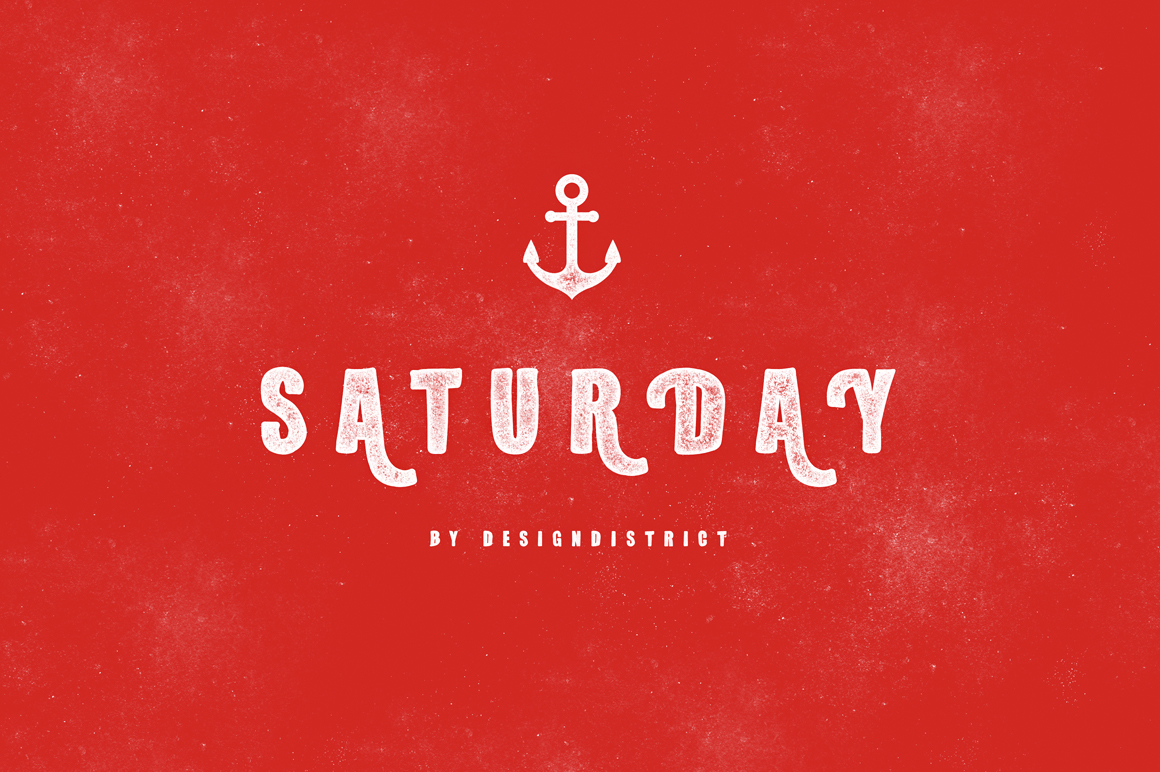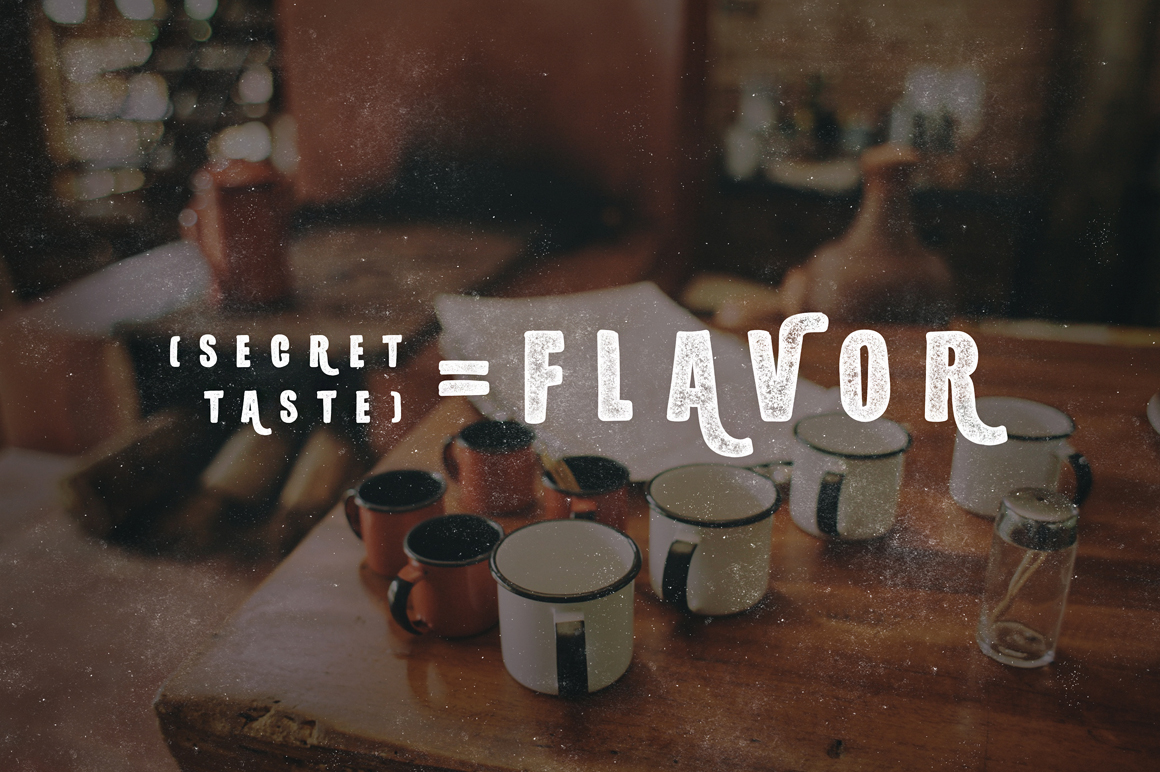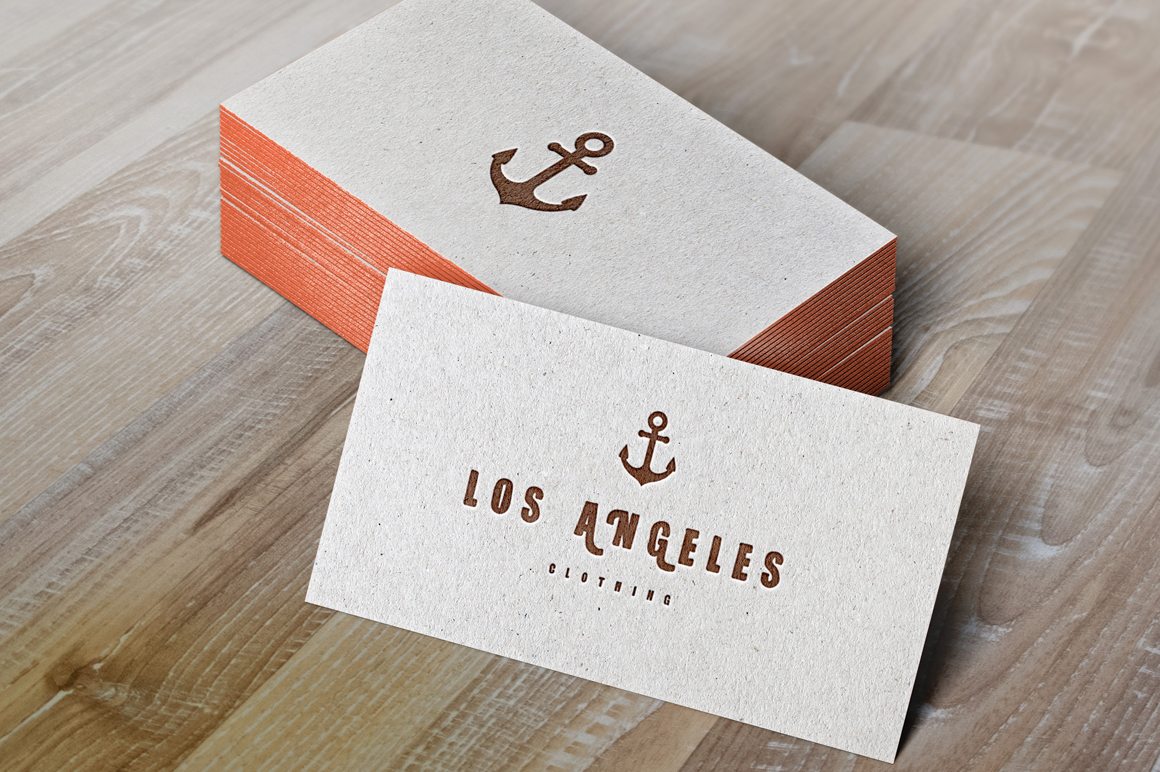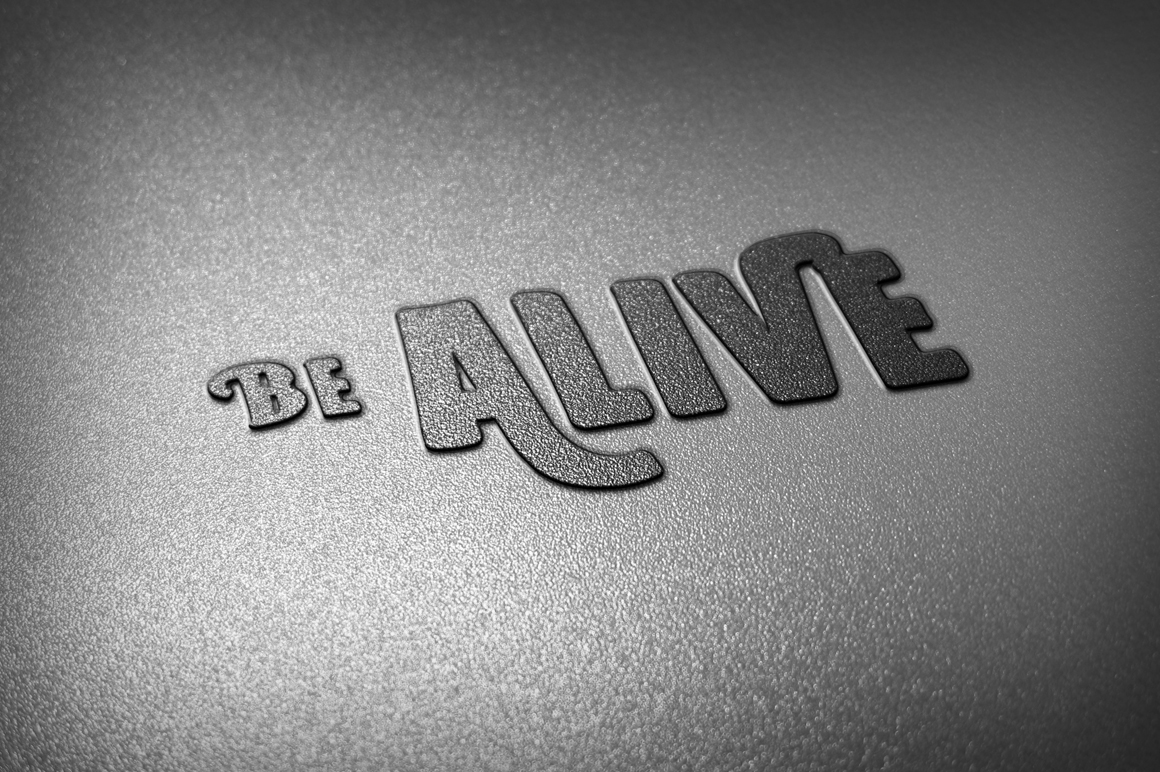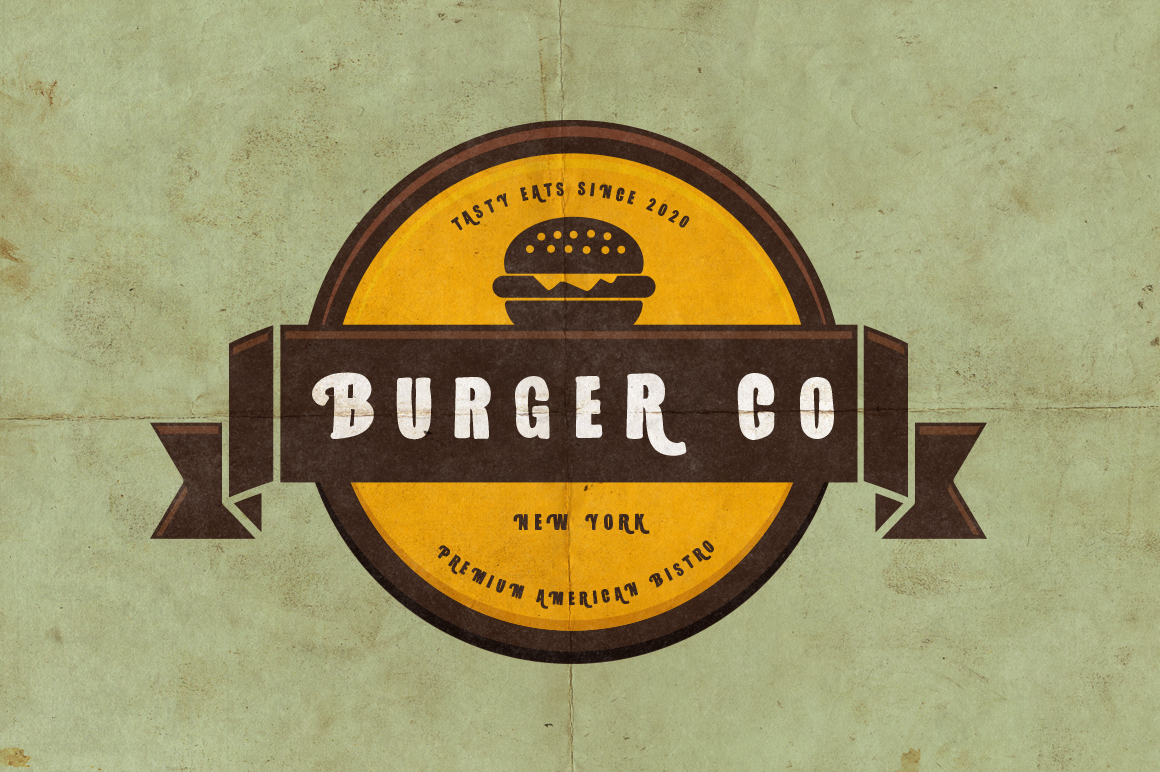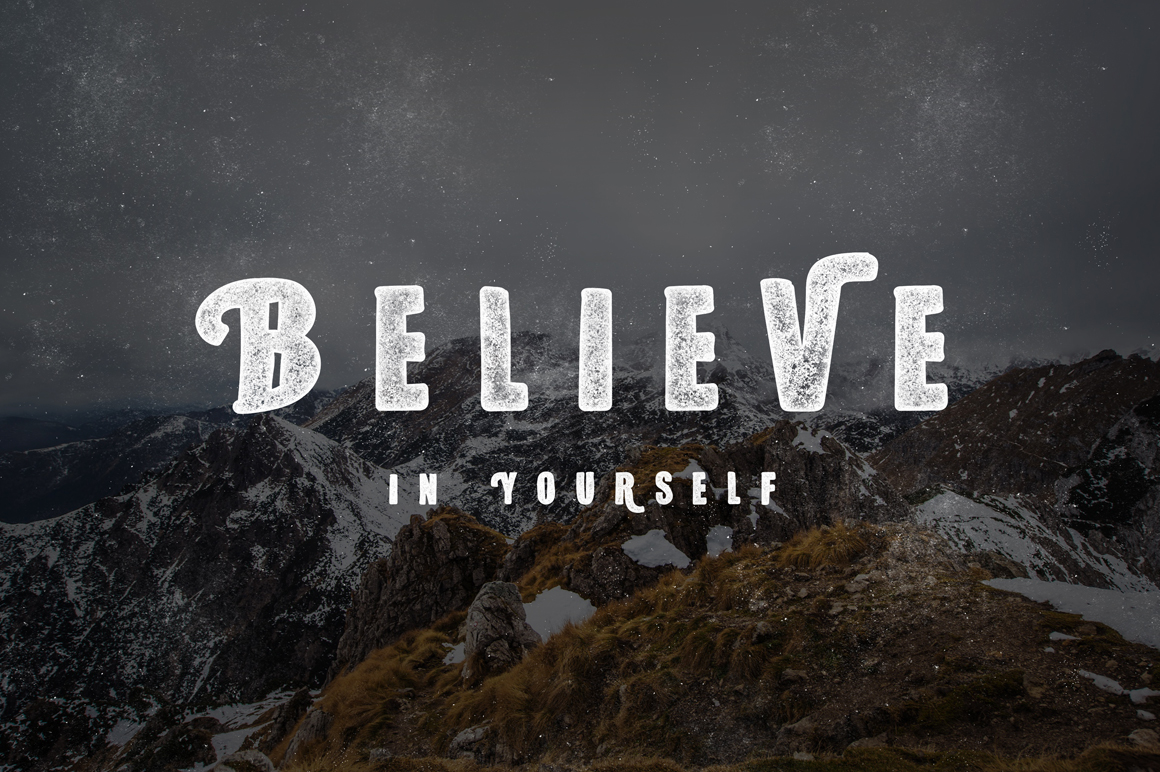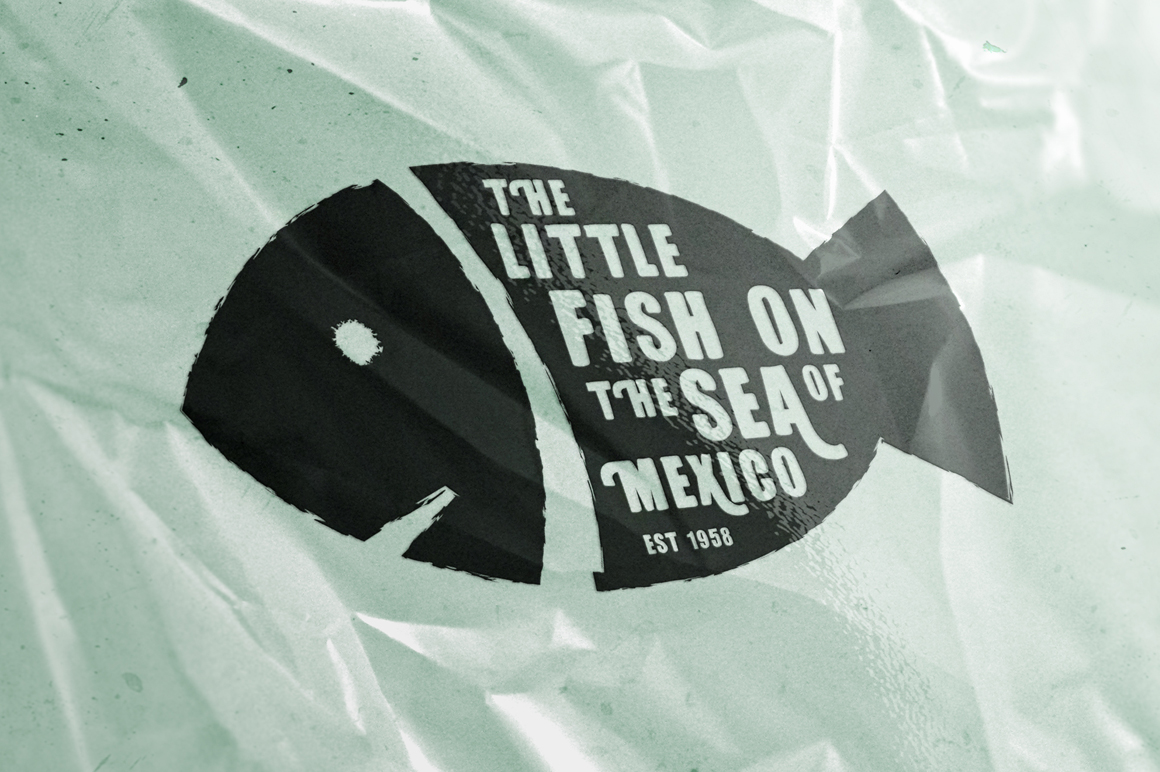
Saturday Free Typeface
Introducing a vintage look label typeface named “Saturday “. It’s made in strong and vintage label style. Typeface is good viewed on any labels design. Can make it easier to convey the message in your design. Use for awesome display, labeling, clothing, movie sceen, poster, movie title, gigs, album covers, logos, and much more.